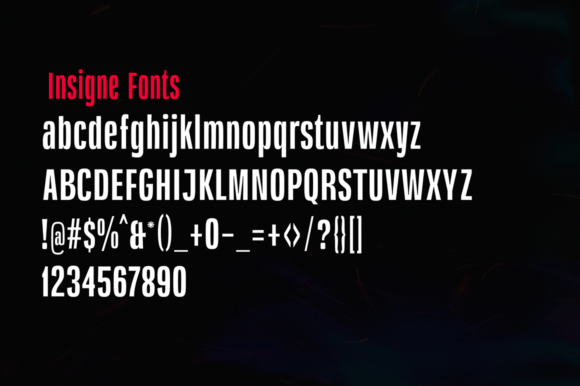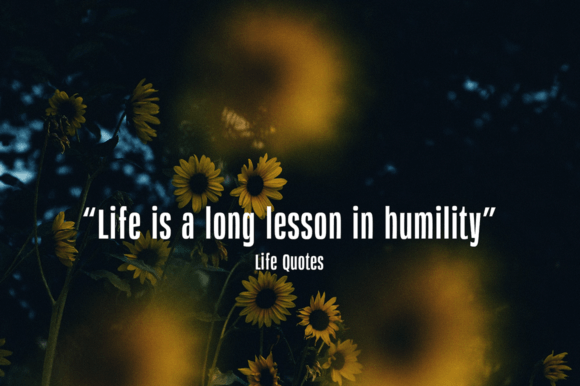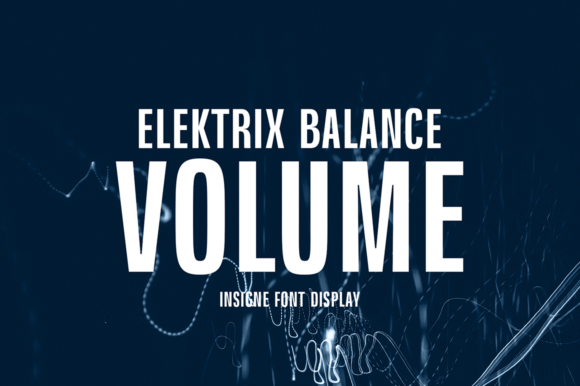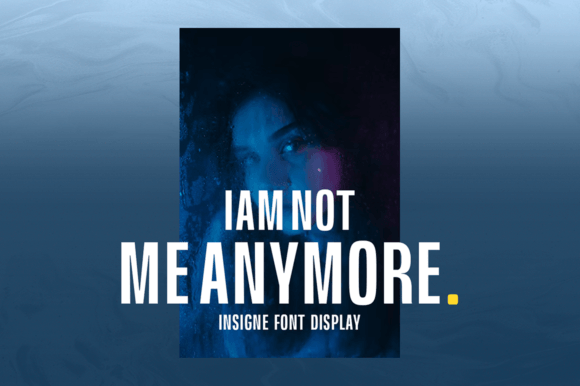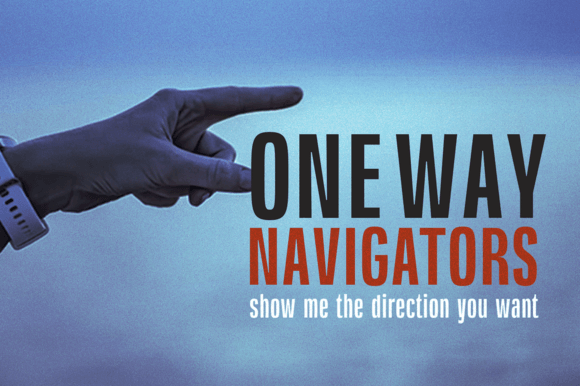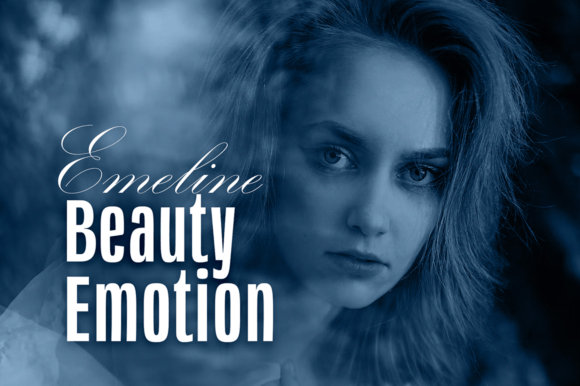
Introduction to Insigne Font
You’ve finally nailed the concept for your next creative project – a bold, eye-catching logo that screams innovation. You envision it shining bright against a transparent background, making a lasting impression on your audience. But, the perfect font to bring your vision to life has been elusive. Enter Insigne Font – a modern and bold display font designed to elevate your creative project to new heights.
This high-quality font is not just a design resource, but a valuable asset for any designer looking to make a statement. With its unique character and style, Insigne Font is the perfect addition to any creative project. And the best part? It’s available for free download, making it an accessible choice for designers of all levels.
Key Features of Insigne Font
- High-quality design: Insigne Font offers a unique and elegant style, perfect for creative projects that require a sophisticated look.
- Transparent background: Insigne Font features a transparent background, allowing for easy customization and integration with various design elements.
- High-resolution design: Insigne Font is designed at 300 DPI, making it suitable for high-quality printing and digital applications.
- Unique characteristics: Insigne Font features a distinctive blend of modern and vintage elements, setting it apart from other fonts and making it an ideal choice for creative projects.
Honest Review: Insigne Font
As a designer, I’m always on the lookout for high-quality fonts to elevate my creative projects. The Insigne Font has been a recent discovery, and I’m excited to share my thoughts on this design resource.
- High-quality typography: The Insigne Font boasts a sleek and modern design that’s perfect for a variety of creative projects.
- Transparency: The transparent background option is a great feature, allowing for seamless integration with any design element.
While the Insigne Font is a solid choice, I do have a few reservations:
- Limited font styles: The Insigne Font only offers a few font styles, which might not be suitable for more complex design projects.
- No bold or italic options: This can be a drawback for designers who require a more dramatic font style.
The Insigne Font is a great addition to any designer’s collection, especially for free. While it may have some limitations, its high-quality typography and transparent background make it a valuable resource for creative projects. I’d definitely recommend it for smaller-scale designs or as a starting point for more complex projects.
Some tips for getting the most out of Insigne Font include experimenting with different font sizes and styles, using it in combination with other design elements, and taking advantage of its transparent background to create visually appealing compositions.
Insigne Font is commonly used in creative projects such as logo design, graphic design, and digital art. Its high quality and versatility make it an excellent choice for designers and artists looking to add a unique touch to their work.